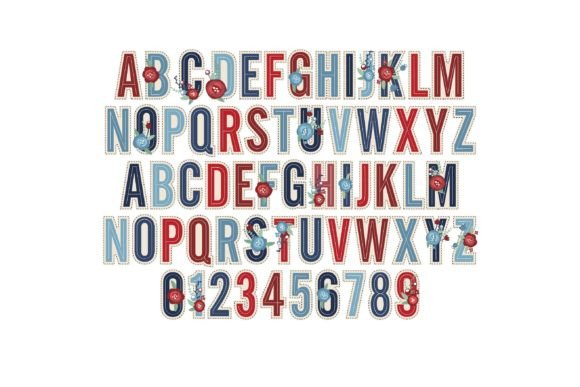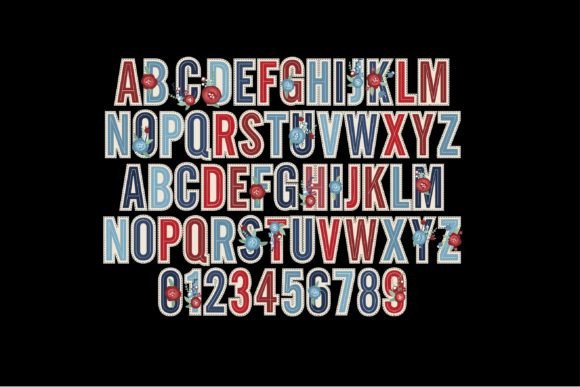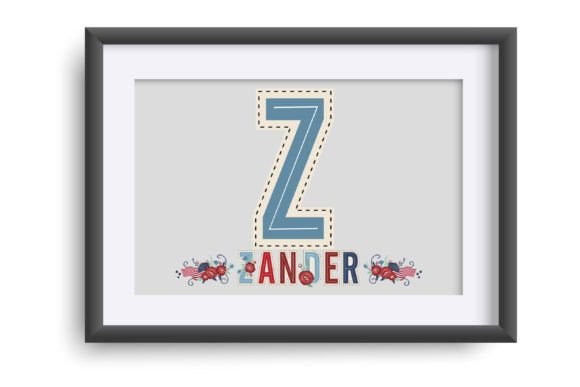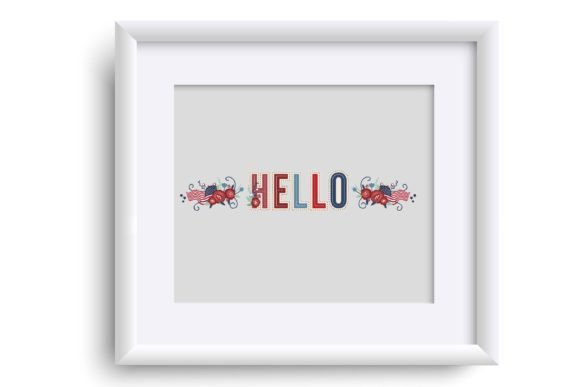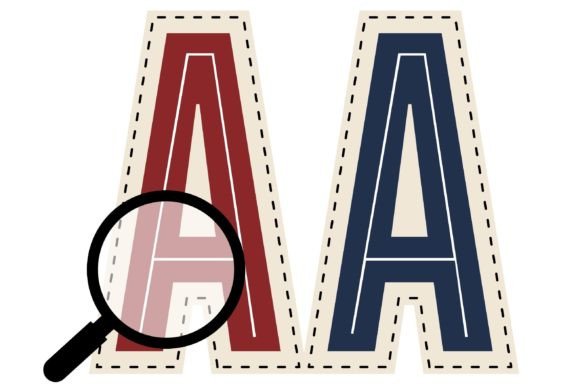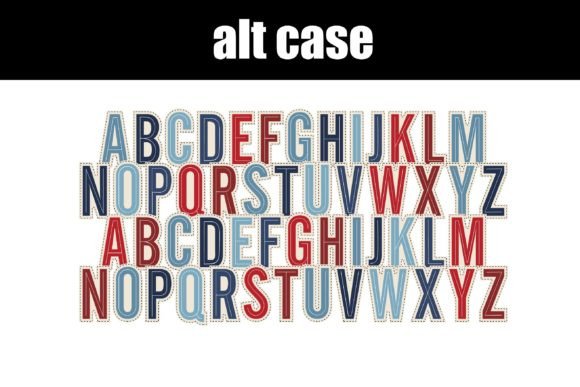
Introduction to Liberty Notes Font Font
Fonts play a crucial role in design, and the Liberty Notes Font font is a typeface that brings both character and versatility to any project. Whether you’re working on a branding project, a website, or a print design, the Liberty Notes Font font offers a unique style that can elevate your work.
This full-color font features ssns serif lettering with a red, white and blue floral on each letter.
Access the flag/floral by typing the greater than and less than glyphs There is an alt version you can access through your systemβs character map that contains additional colors of all the letters.
Key Features of Liberty Notes Font Font
Why Choose Liberty Notes Font Font?
The Liberty Notes Font font is more than just a typeface β it’s a design tool that helps you communicate your message with style and clarity. Its unique character set and versatile design make it suitable for a wide range of applications, from elegant invitations to bold headlines.
With its carefully crafted letterforms and balanced proportions, the Liberty Notes Font font ensures readability and visual appeal across all mediums.
What makes Liberty Notes Font font special?
The Liberty Notes Font font stands out with its unique design, exceptional readability, and versatility across various design applications.